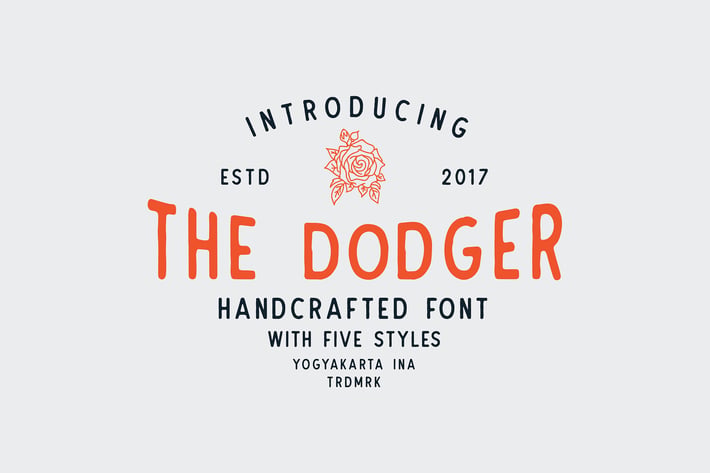
The Dodger + Extras (11 Fonts !)
The Dodger is a family of FIVE sans serif font designed with carefully handcrafted. Also suitable for branding, T-shirt, Wedding Invitation, Vintage Design, Logotype, and any project. With five style make you easier to design everythings, and a script bonus to make better design.